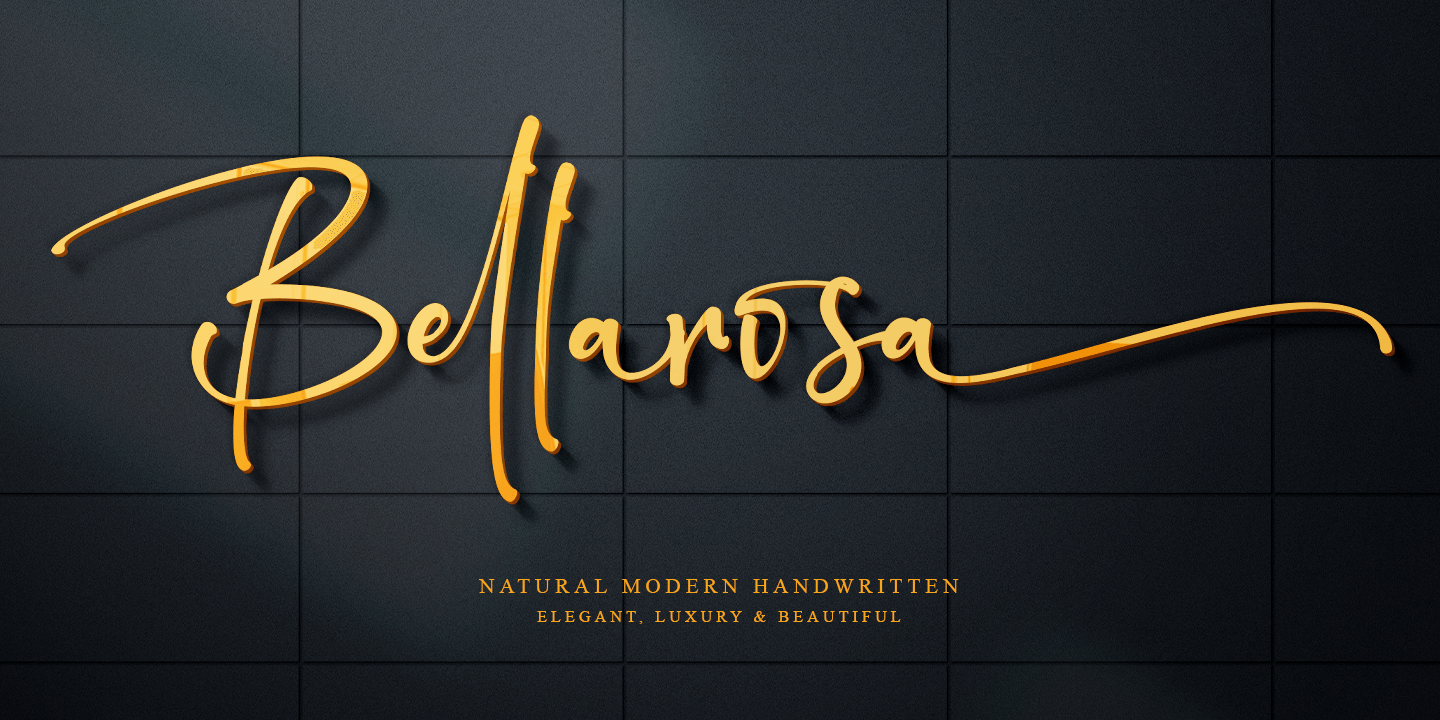
Bellarosa Font is perfect for romantic wedding invitations, luxury rose garden branding, elegant beauty product packaging, feminine floral designs, sophisticated perfume labels, Valentine's Day promotions, enchanting love letters, and beautiful botanical communications.
This exquisite script typeface is exciting because it captures the timeless beauty and romantic elegance of blooming roses through delicate letterforms that evoke the passionate romance and natural grace of the world's most beloved flower.
The Bellarosa Font family includes regular and ornamental weights with rose-inspired alternates, floral decorative elements, and romantic flourishes that enhance the beautiful, enchanting atmosphere of any rose-themed design project.
Beautiful and romantic, Bellarosa Font Free Download brings the timeless elegance and passionate romance of roses to contemporary typography through exquisite floral beauty. This enchanting font embodies the natural grace and romantic symbolism that makes roses the universal language of love, making it essential for brands celebrating romance and the eternal beauty found in nature's most perfect creation. Its delicate character reflects the tender care and patient cultivation required to grow perfect roses and the deep emotional connections that flowers create between hearts, resonating with audiences who appreciate authentic romance and the natural beauty that inspires love across cultures and generations. Perfect for florists and romantic venues, this font ensures your message carries the floral authenticity and romantic elegance that love deserves. Whether used for wedding ceremonies or Valentine's celebrations, Bellarosa Font Free Download delivers the rose-inspired beauty and romantic credibility that connects with people who understand that true love, like perfect roses, requires patience, care, and the recognition that the most beautiful things in life are worth waiting for and nurturing with devoted attention.